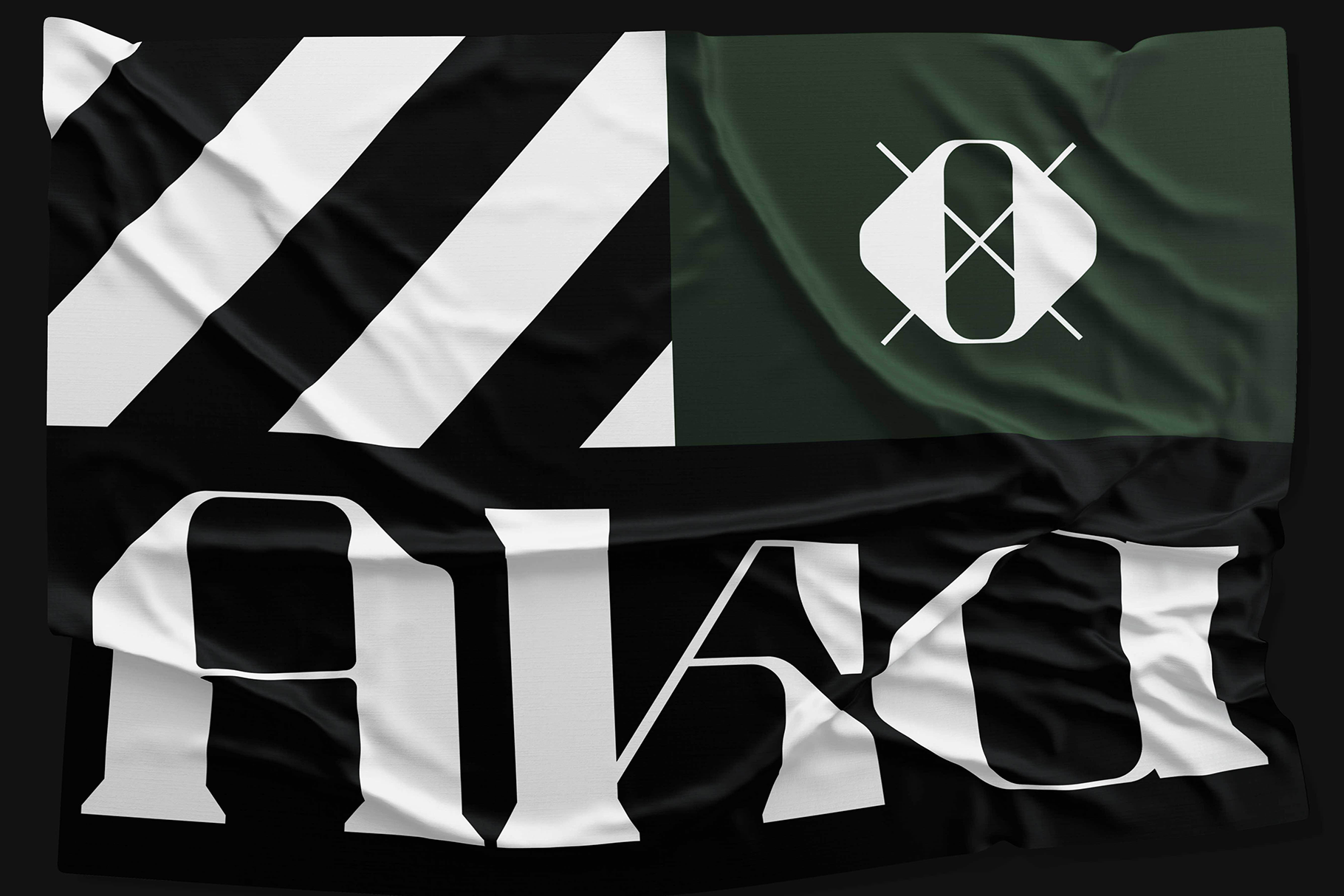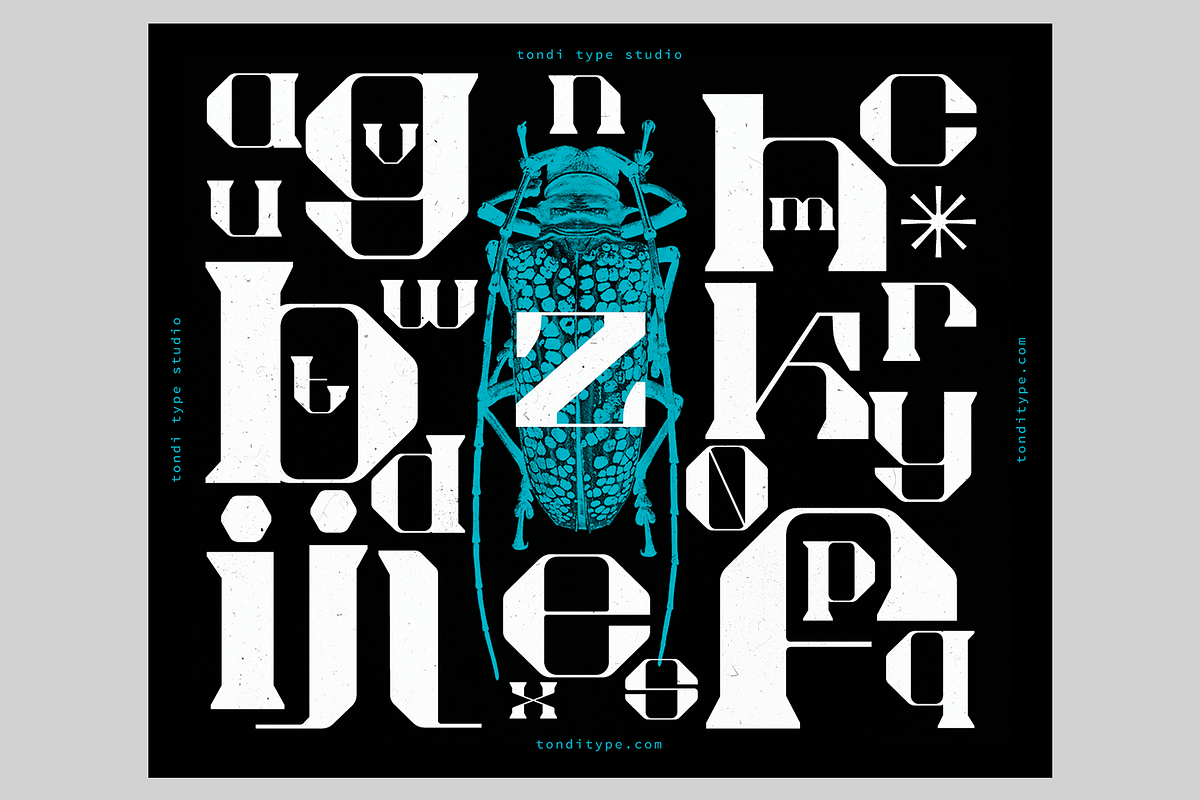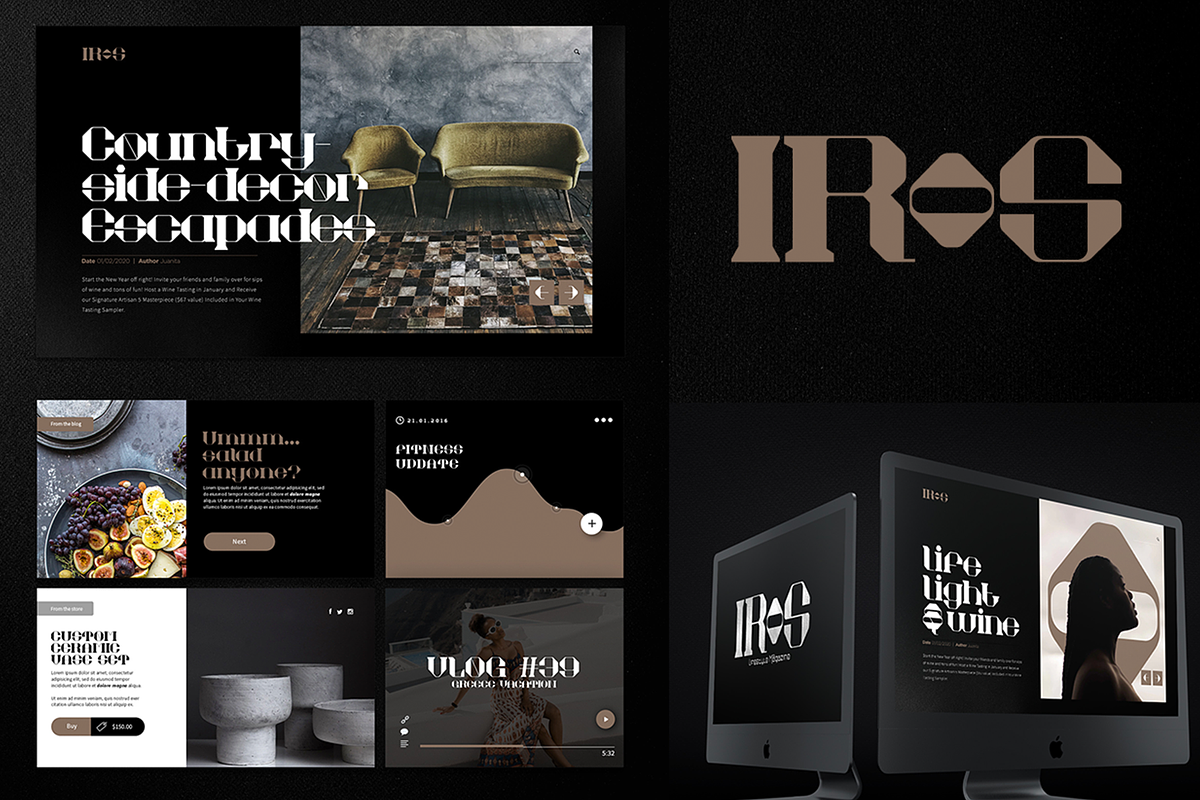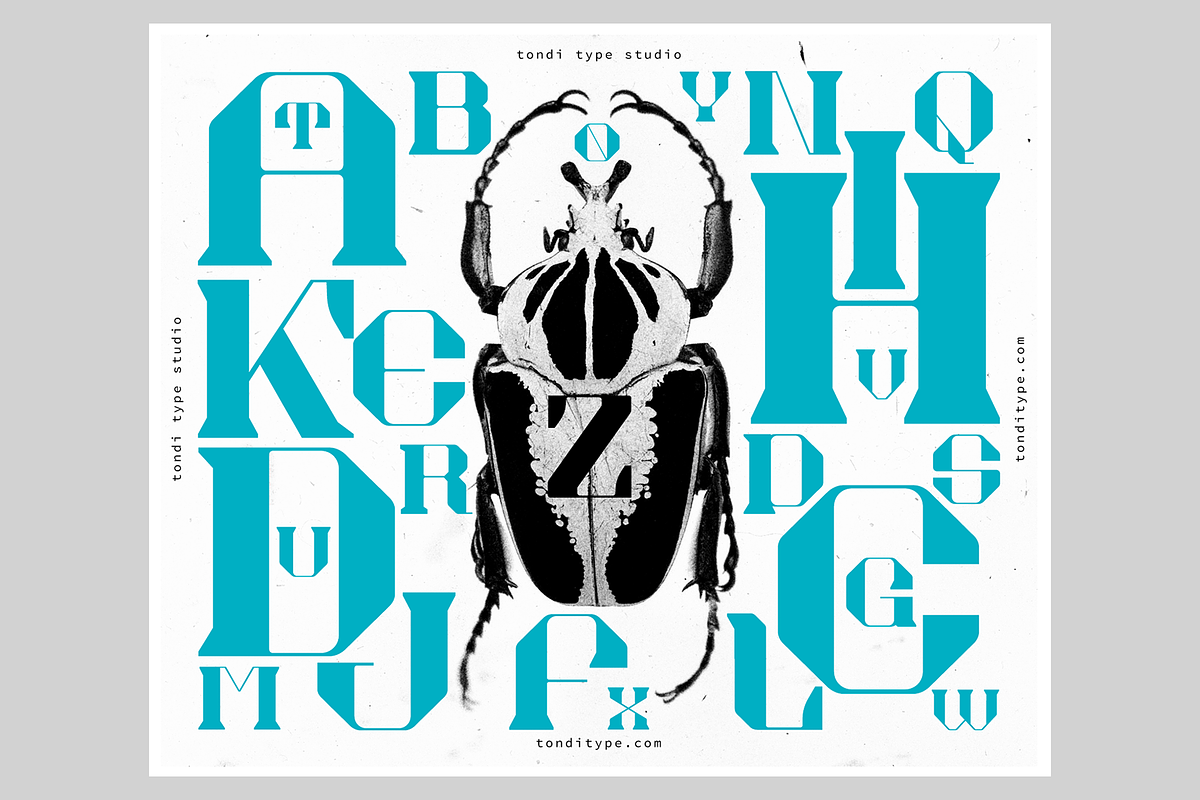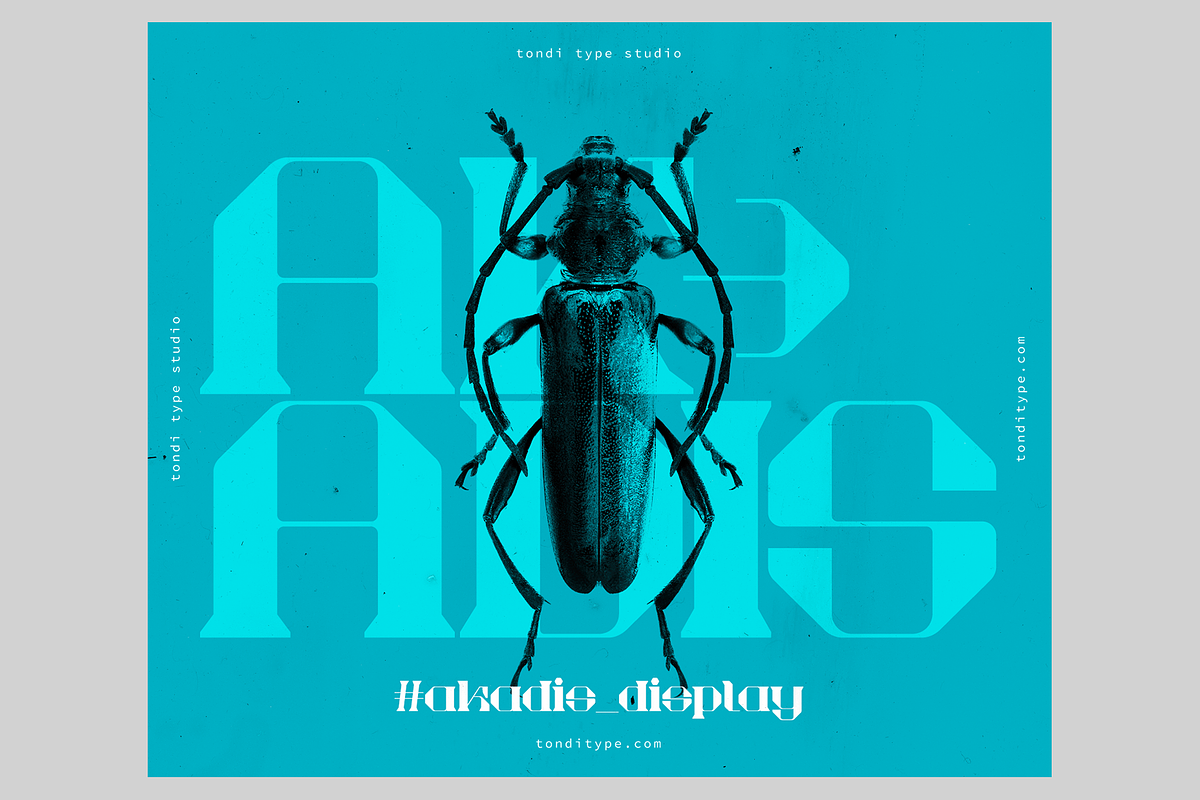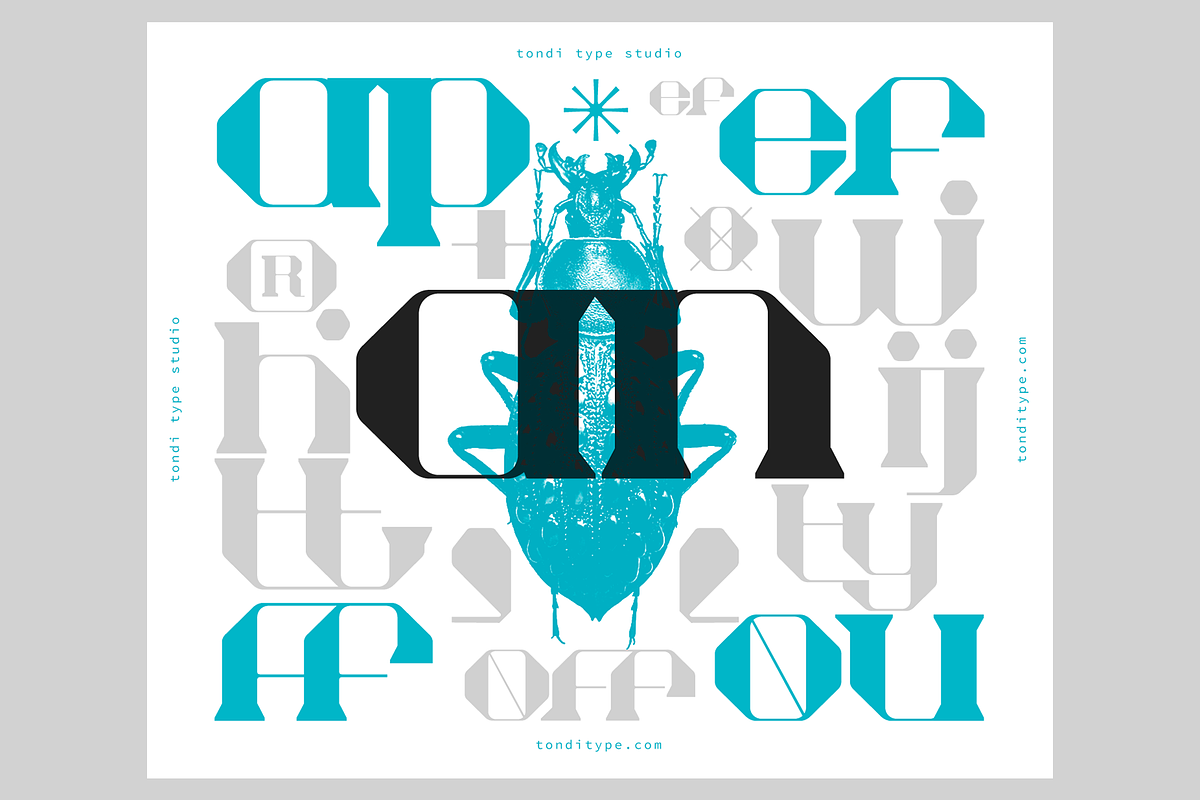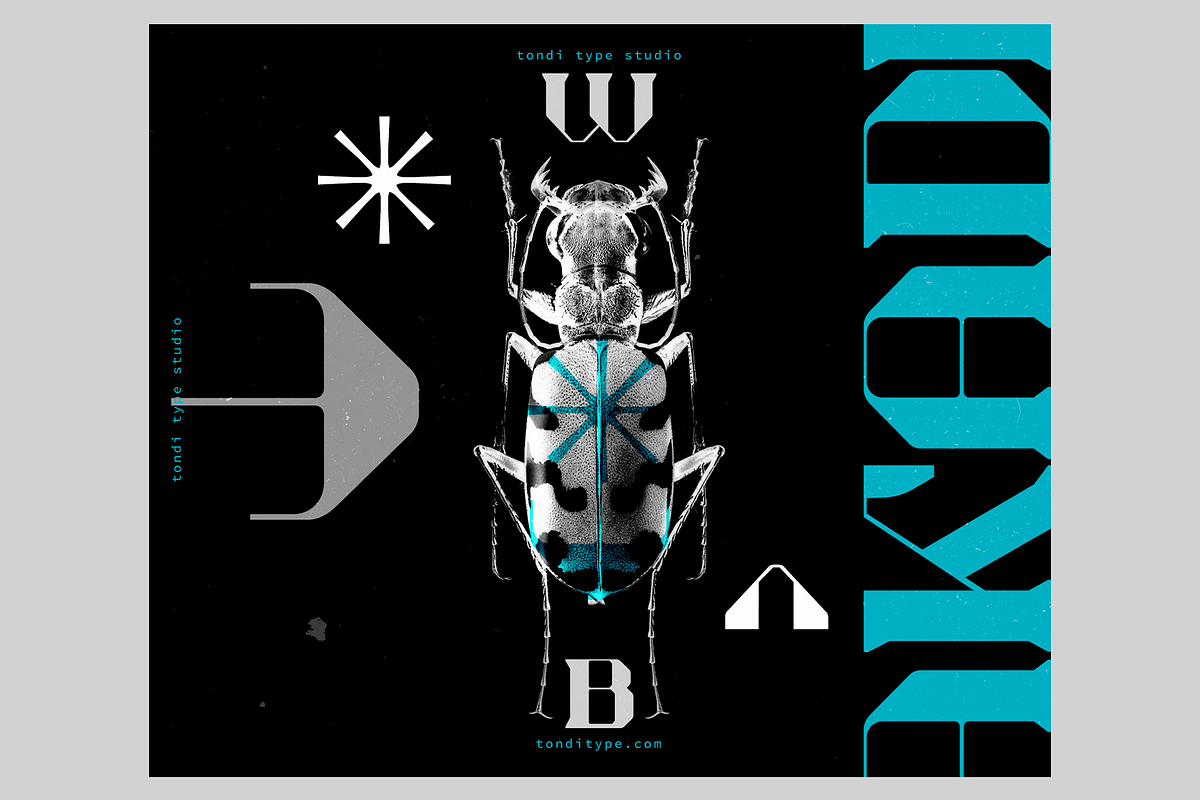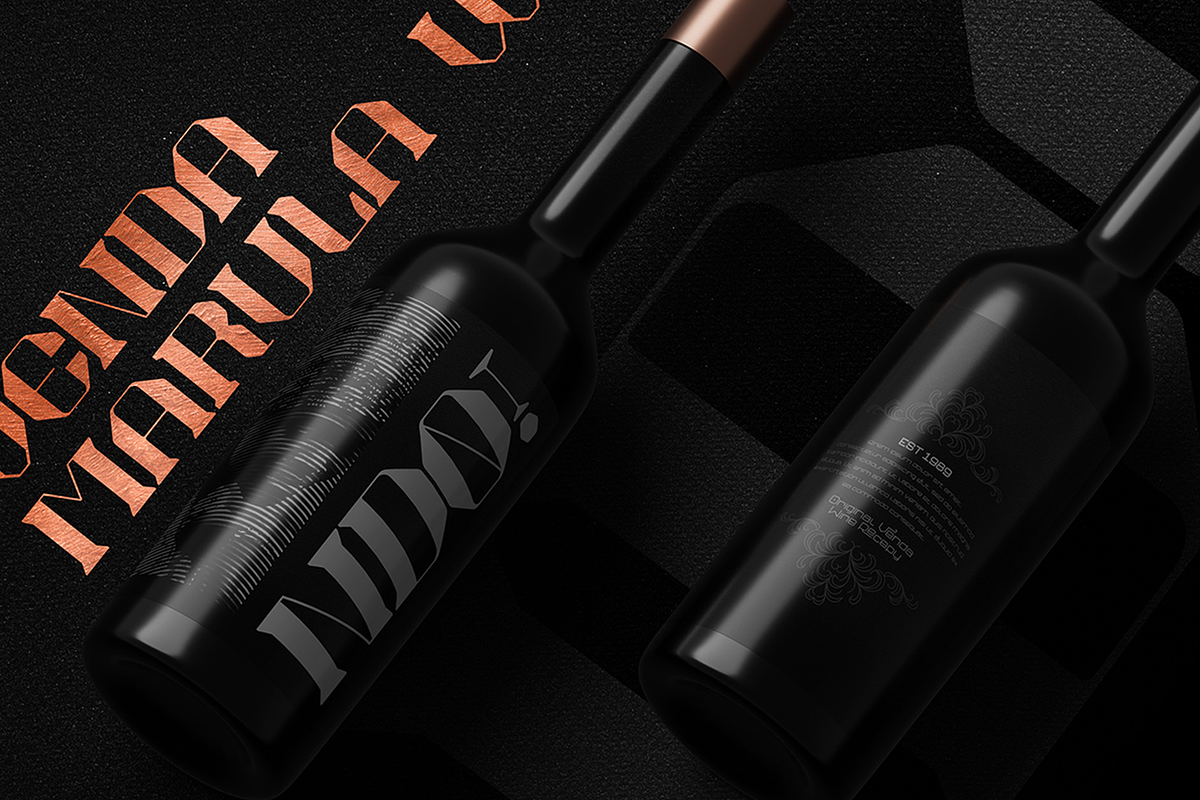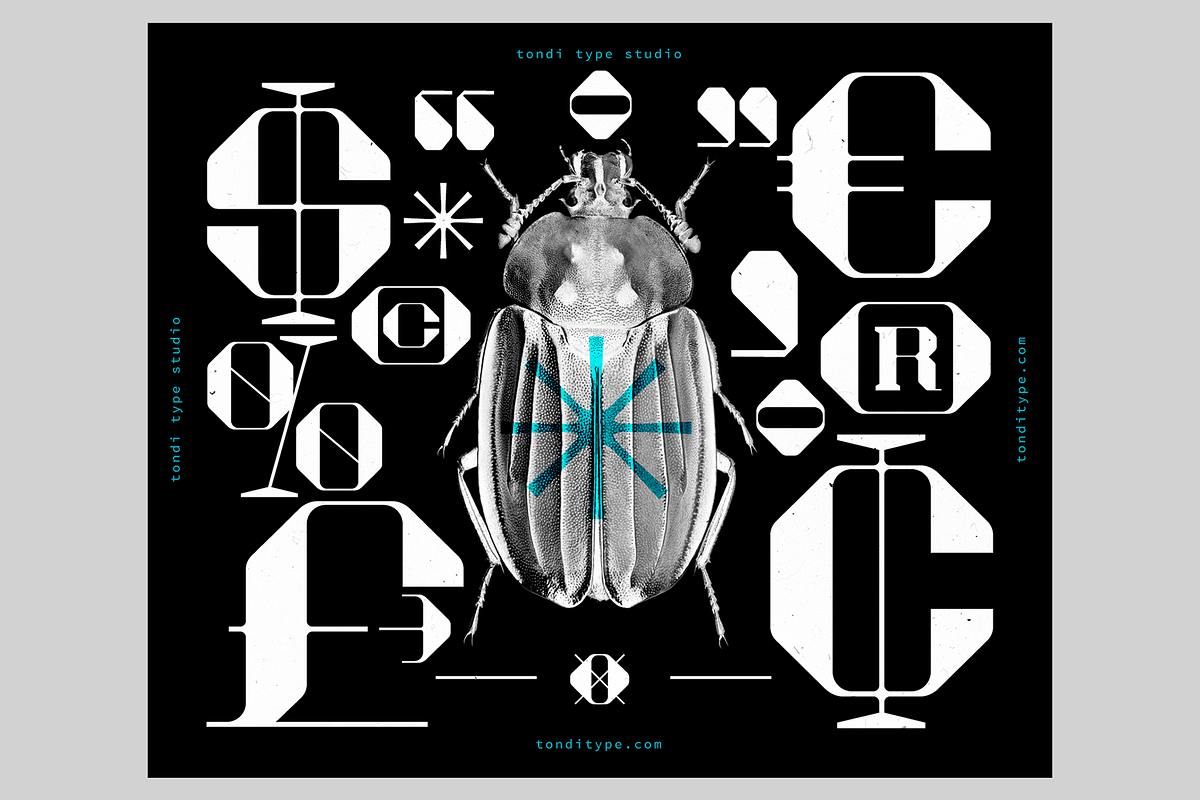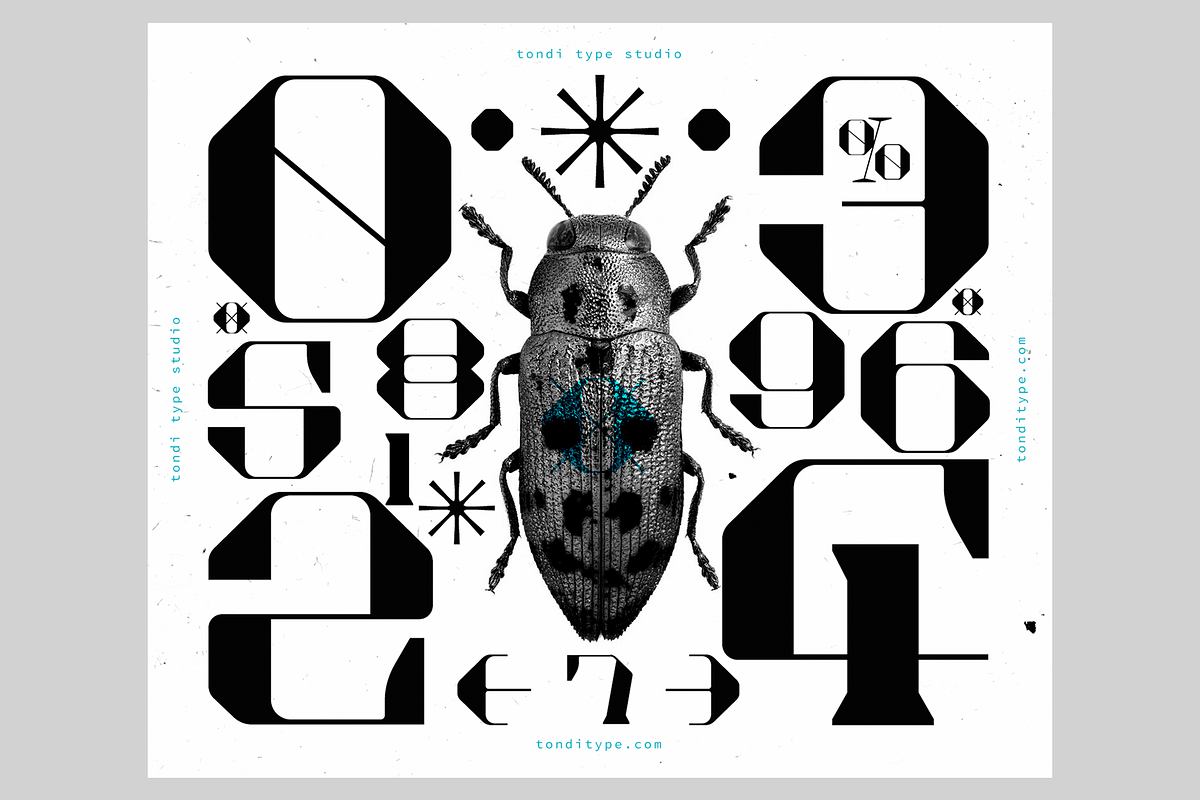
Akadis Display Font
Akadis Display is a hybrid between industrial and geometric sans shapes, fused with contrast and other features from contemporary serifs.
This typeface came out of experimentation on an existing and yet to be released sans serif. The typeface, in it's current state, is perfect for use on headlines and designs that have a classical and contemporary aesthetic.
This version of Akadis Display features:
- Single Font Weight
- Capitals
- Old Style Figures
- Numerators & Denominators
- Fractions
- Special Characters